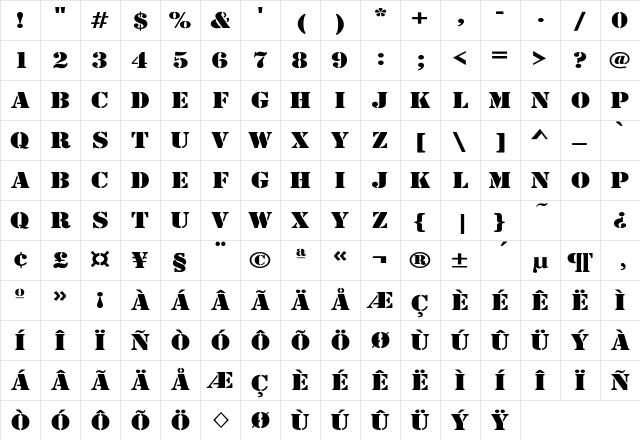
Army Wide Regular
Design Context for Army Wide
Army Wide has the no-nonsense character of military stencilling and tactical signage, projecting authority and directness.
A strong choice for security brands, outdoor gear, and high-stakes visual communication.
Pro Tip: Try Army Wide in all-caps for the most authentic military signage feel. It pairs well with stark, minimal layouts and muted colour palettes.